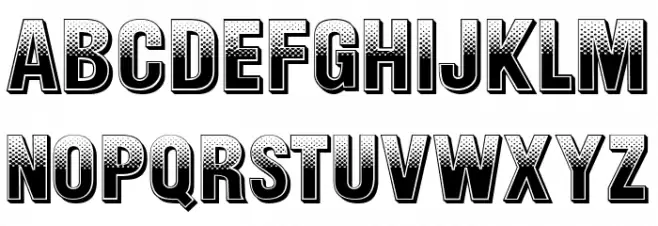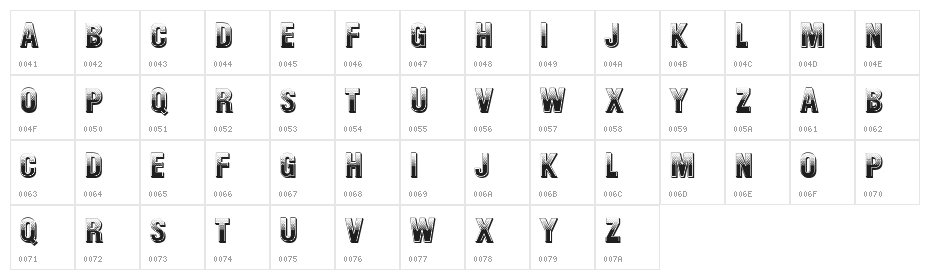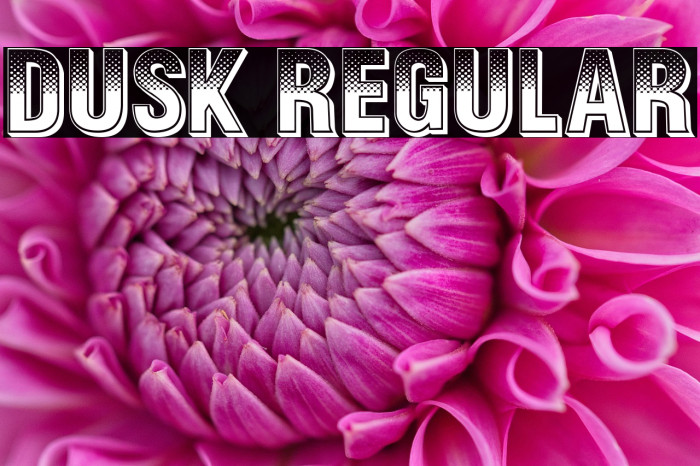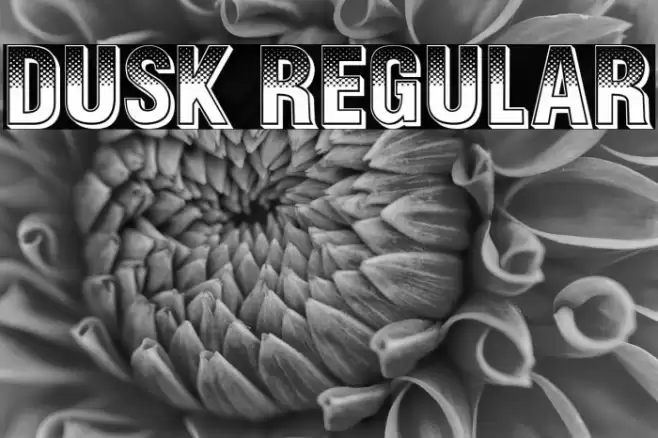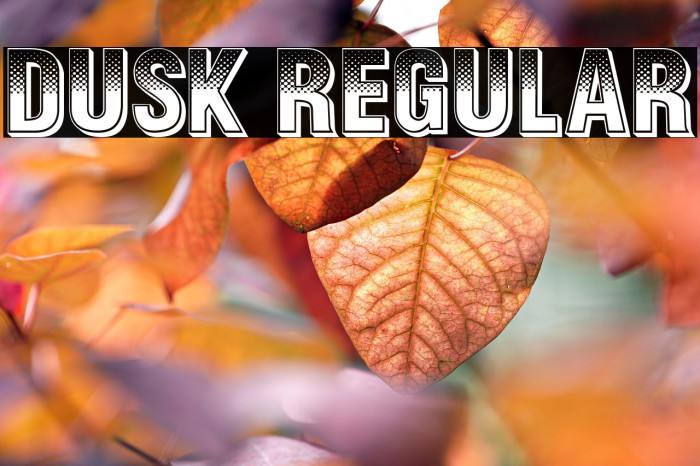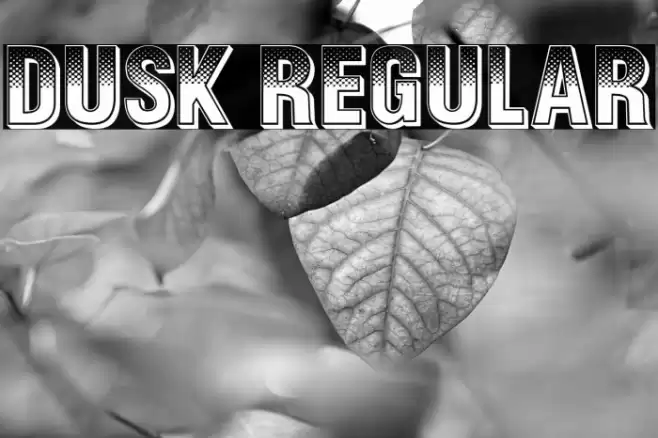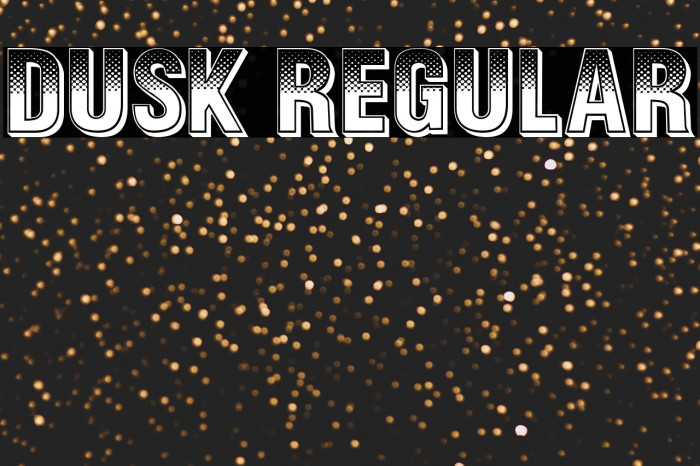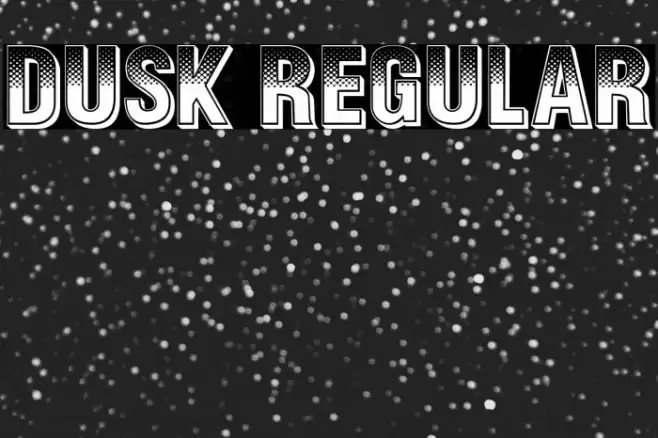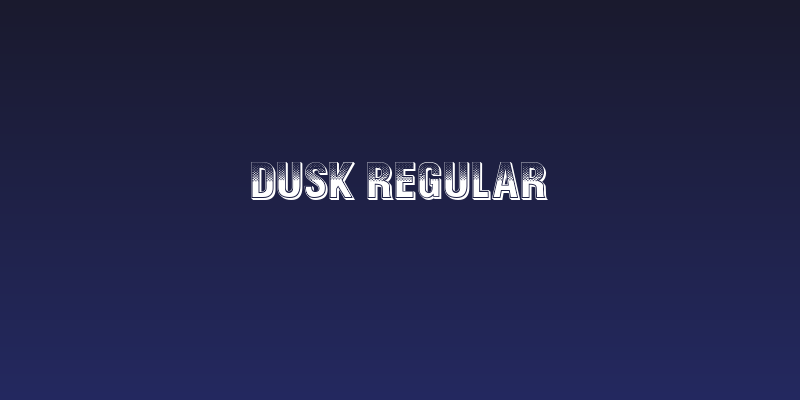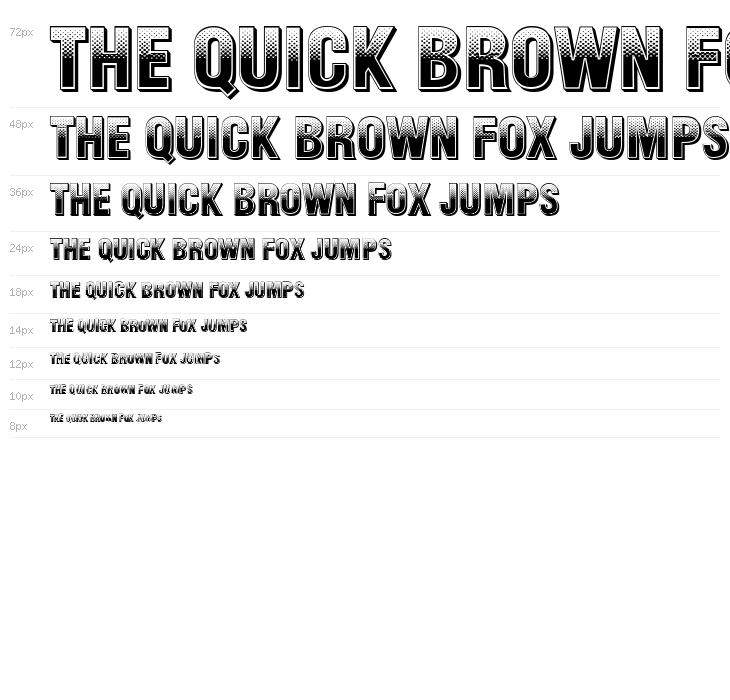
Dusk Regular Font
Dusk Regular Description
This font features a bold, decorative style with a unique halftone pattern filling each letter. The uppercase alphabet is presented in a striking manner, with each character outlined in black, creating a strong visual impact. The halftone pattern adds a retro, comic book-like texture, making the font stand out. The characters are evenly spaced, ensuring readability despite the intricate design. This font is ideal for projects that require a bold statement, such as posters, headlines, or branding materials. Its distinctive style is both eye-catching and memorable, making it suitable for creative and artistic endeavors.
Overall StyleRetro, Comic
Use CaseHeadlines, Posters, Branding
Proposed ProjectsIdeal for posters, headlines, branding, and creative designs requiring a bold statement.